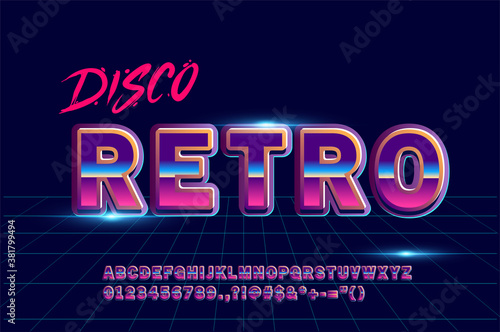
80s Disco alphabet font. Futuristic metal chrome letters. Bright Alphabet on dark background. Light Symbols Sign for night show in club. concept of galaxy space. Set of types.